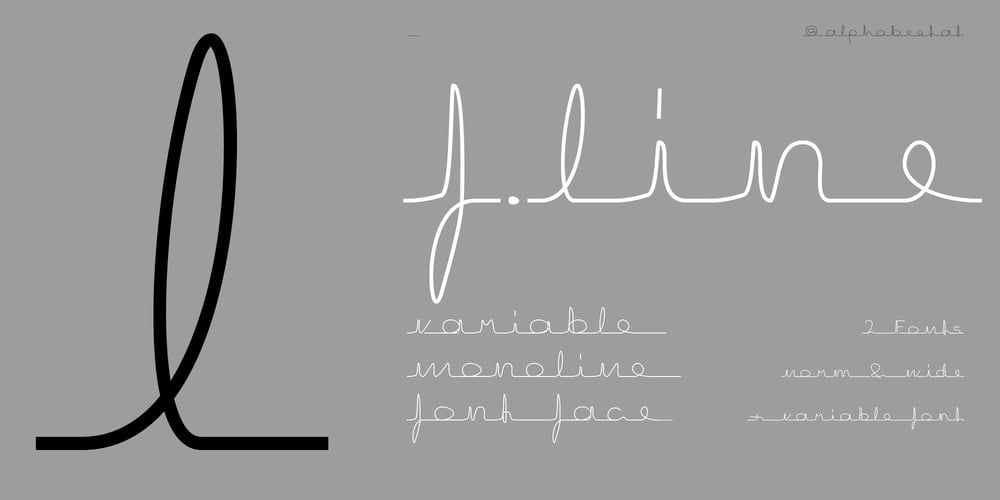
F line Font Family was designed by Florian Kriegner and published by alphabeet.at. F line contains 3 styles and family package options. f-line is a special handwriting monoline font face, with one constant line from glyph to glyph and variable width. It was drawn for the designer’s thesis in 2010 and expanded until 2021 with a lot of open type features. It’s built up with three glyph sets to let the glyphs rotate automatically, and amongst other type features initial forms are available.